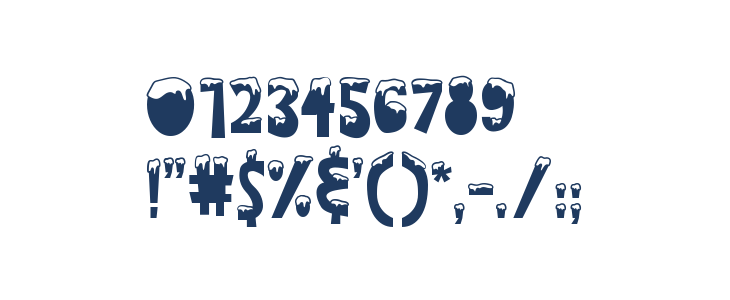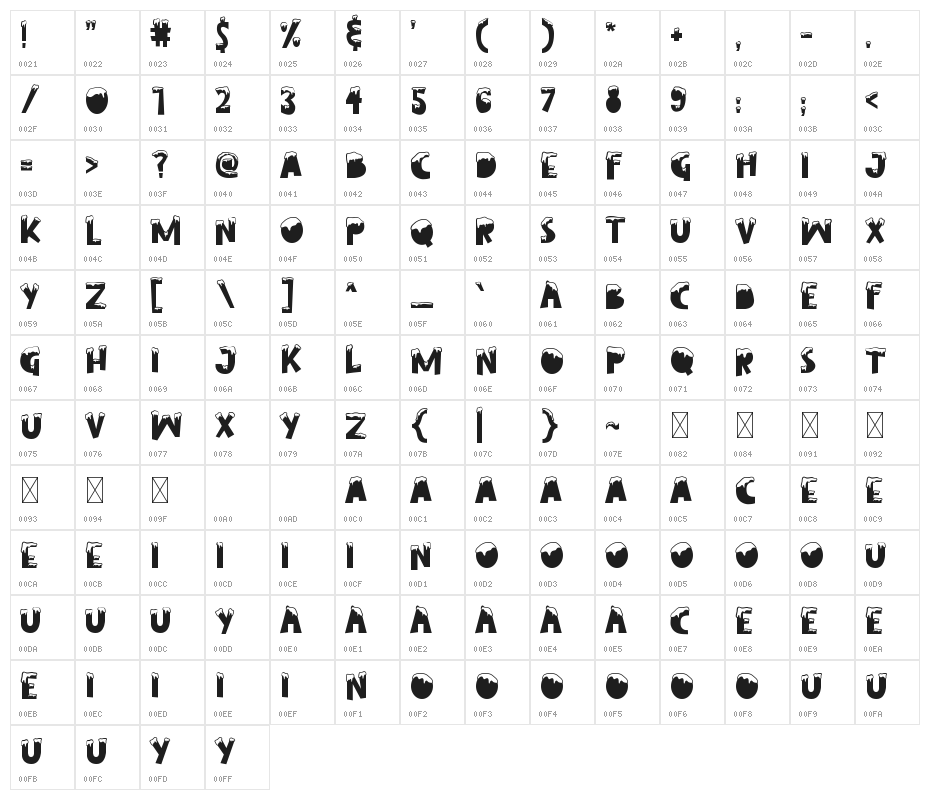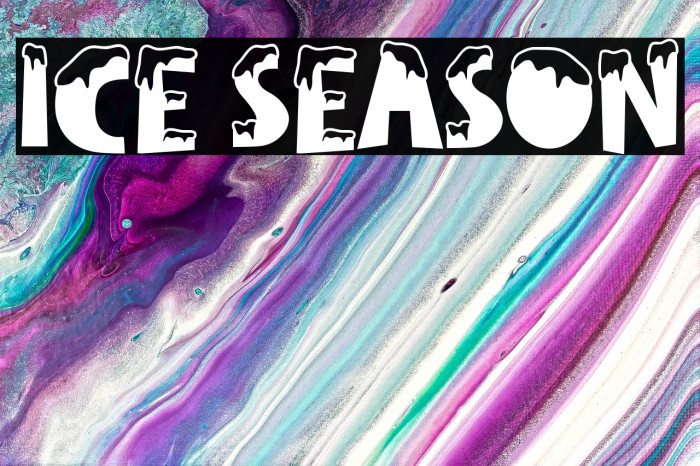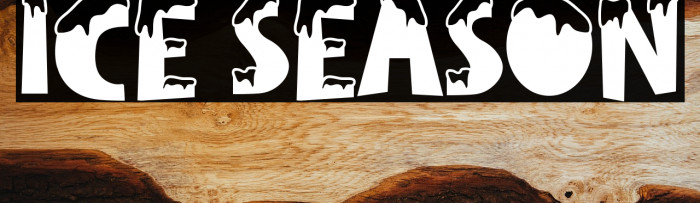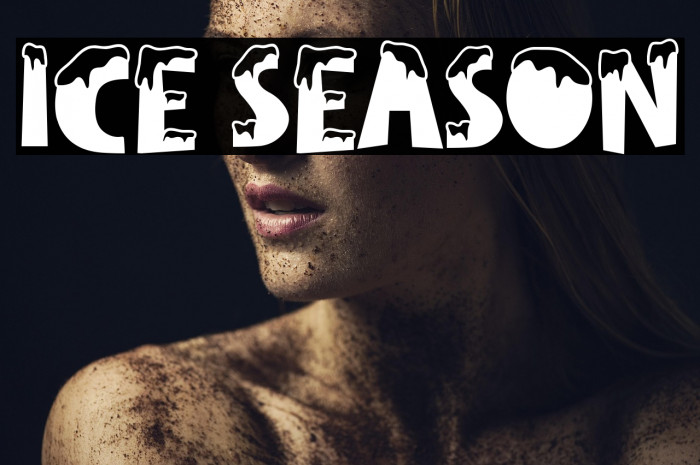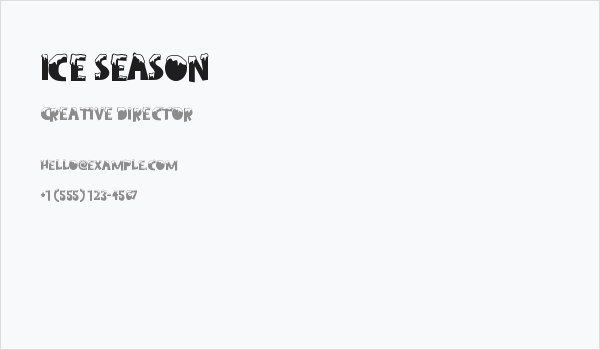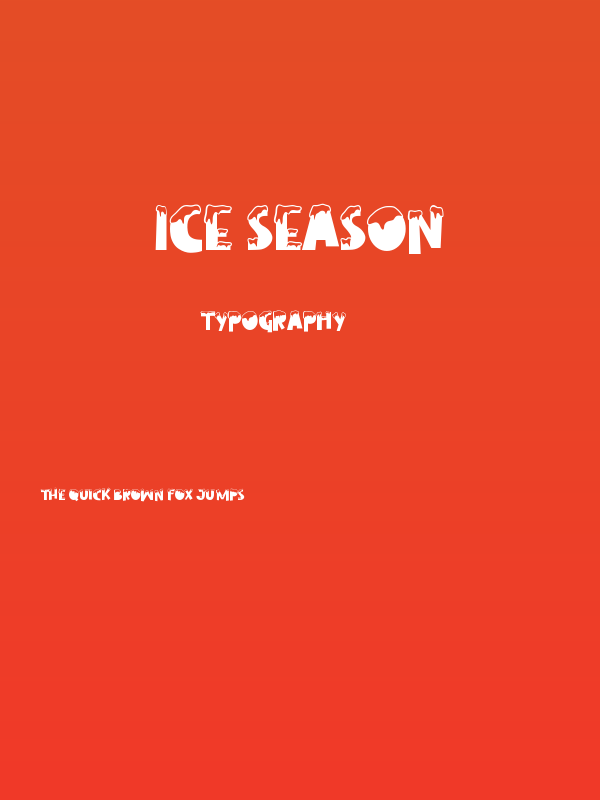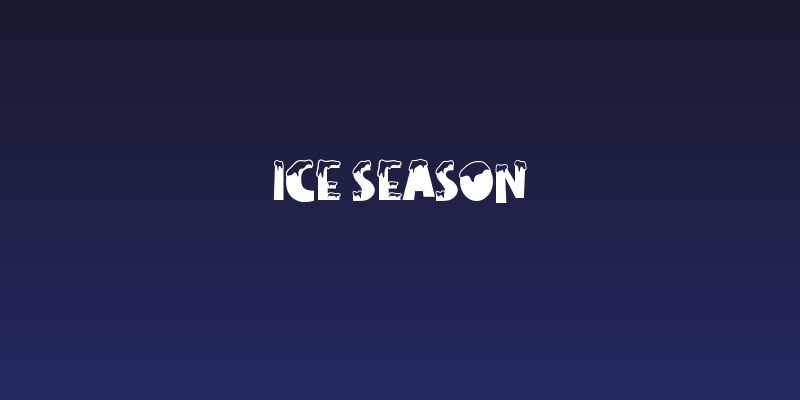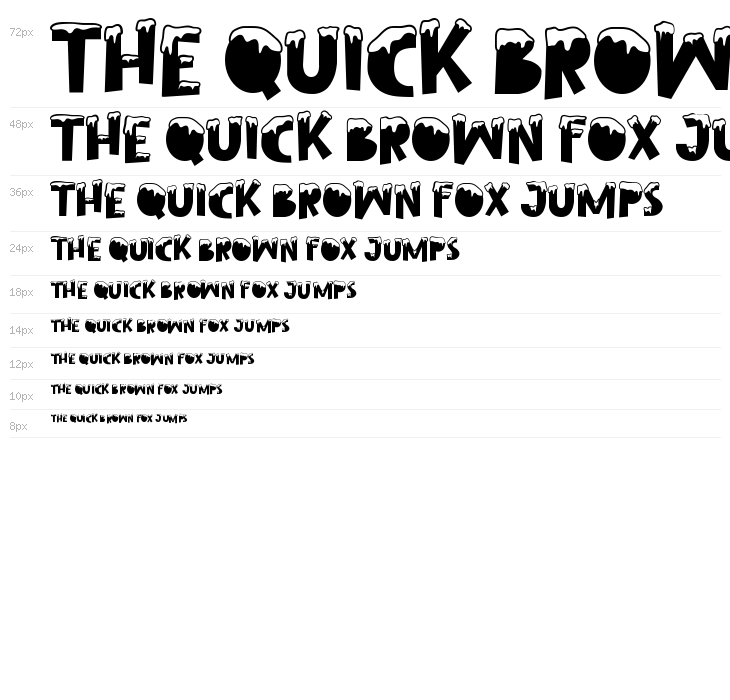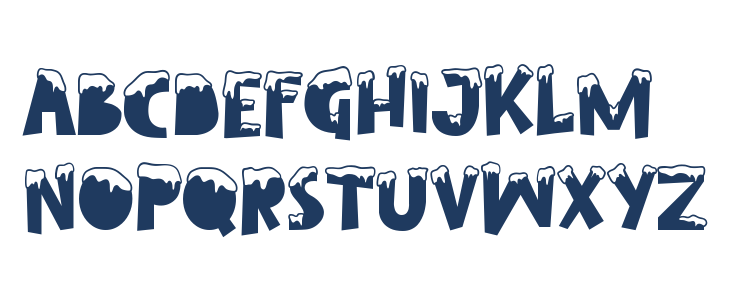
Ice Season Font
Ice Season Description
This playful and bold font features a unique design where each character is topped with a snow-like effect, giving it a frosty and winter-themed appearance. The letters are thick and robust, with a slightly irregular shape that adds to the whimsical and fun nature of the font. The snow caps on the characters create a sense of depth and texture, making it ideal for festive and seasonal designs. The numbers and special characters are equally styled, maintaining consistency across the entire typeface. This font is perfect for projects that require a touch of winter magic or a playful, decorative element.
| Proposed Projects | Ideal for holiday cards, winter festival posters, children's book covers, and seasonal advertisements. |